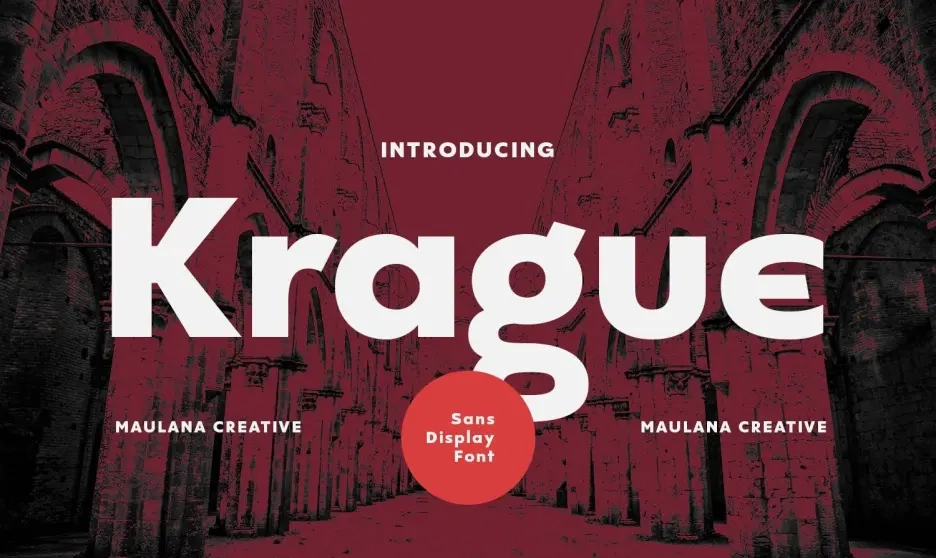
Krague Sans Display Font Krgmj7T
Introducing the Krague Sans Display Font, a modern typeface designed for impactful visual communication. This font features a clean and contemporary aesthetic, making it ideal for various applications including branding, logos, web design, and print materials.
• Stylish sans-serif design
• Easy to read at various sizes
• Perfect for headlines and display text
• Use in branding projects for a modern touch
• Ideal for website headers and promotional materials
• Combine different weights for visual interest